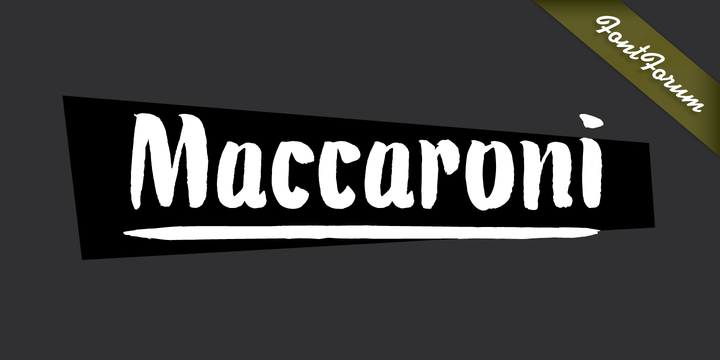
David Kowalski’s typeface Maccaroni is based on a logo type and has been designed to a complete typeface in Prof. Veljovic’s Type Design course at HAW Hamburg. Maccaroni breaks the traditional brush scripts and offers a unique design. Each letter is present in triplicate in order to achieve the illusion of a hand-written typeface. The OpenType programming ensures that two identical letters won’t follow each other.